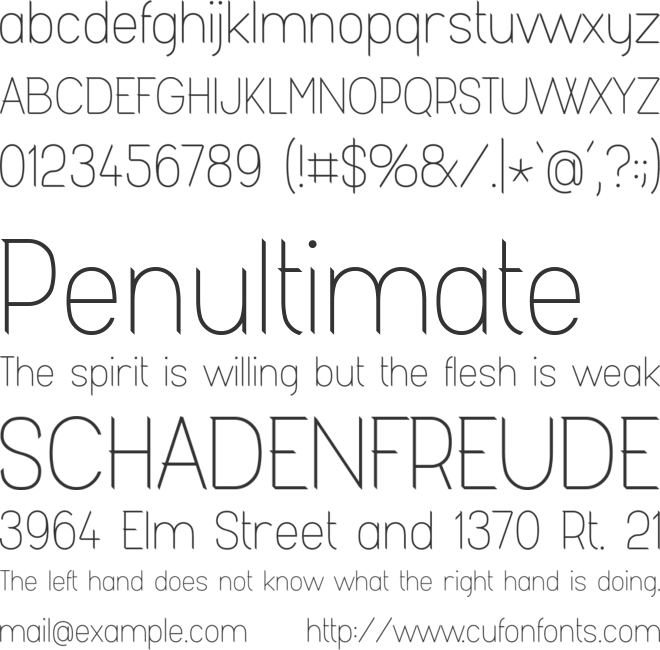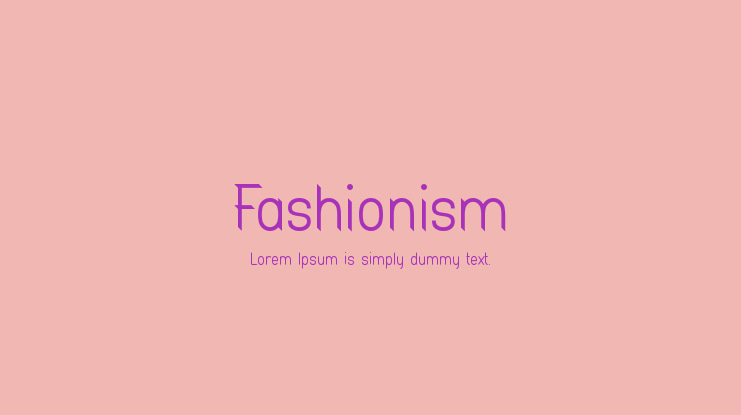
Fashionism Font Family
Vít Čondák
I started creating the Italic version in 2003 (the unfinished version it's still floating around the internet) and it took me 12 to finish it - now with Regular and Light (my favourite) versions too.